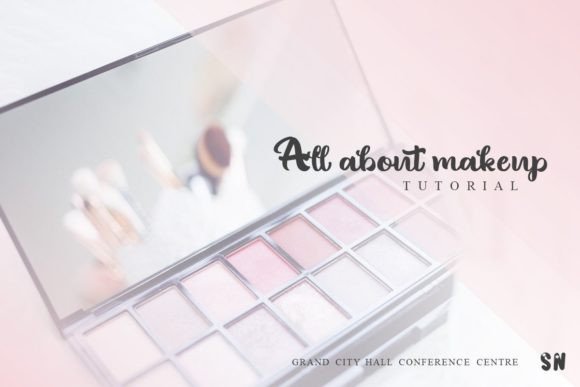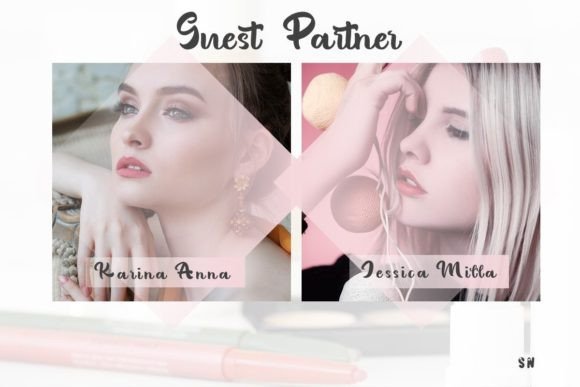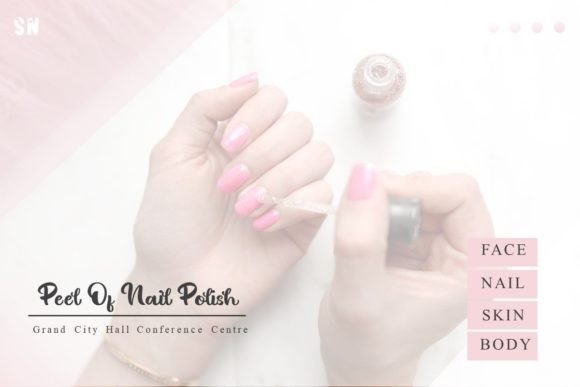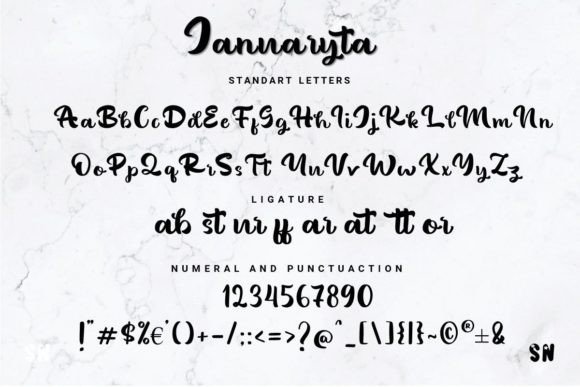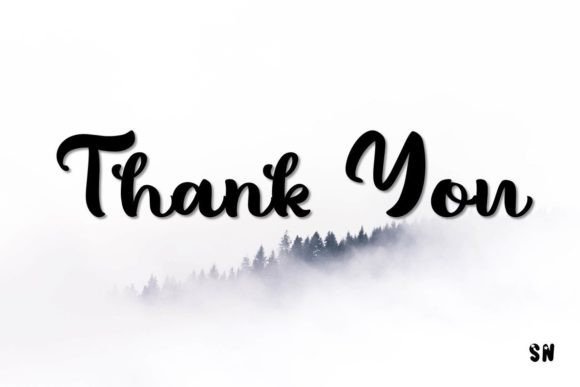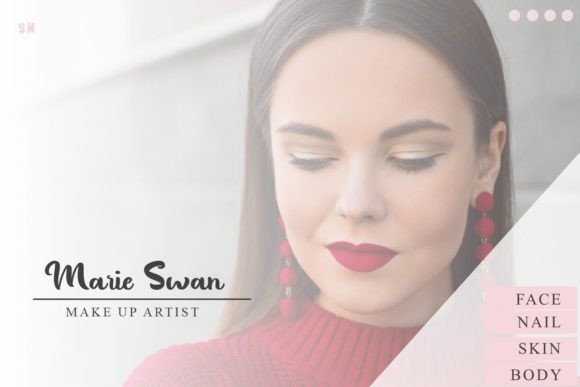
Januaryta Font
About Januaryta Font
“Januaryta: Where Elegance Meets Charm in Handwritten Typography
Introducing Januaryta, a smooth handwritten font that embodies a sense of calm and pleasant elegance. With its cute style and delightful demeanor, this font adds a touch of charm to a variety of creative projects. Whether you’re designing wedding invitations, crafting heartfelt quotes, creating eye-catching social media posts, or expressing gratitude through thank you cards, Januaryta’s smooth and charming script will elevate your designs, making them visually stunning and emotionally resonant.
The allure of Januaryta lies in its smooth and graceful strokes, creating a visual poetry that evokes a sense of tranquility and warmth. Each letter is meticulously crafted to exude a calm and pleasant impression, making it the perfect choice for projects that require a touch of elegance and charm. Imagine your wedding invitations adorned with Januaryta’s handwritten elegance, setting the stage for a romantic and memorable celebration. Picture your quotes and greeting cards featuring its delightful letterforms, conveying messages with a sense of grace and sincerity. With Januaryta, your designs come to life with a touch of charm, making them visually captivating and emotionally resonant.
One of Januaryta’s standout features is its ability to complement a wide range of designs. Its cute style adds a playful and endearing quality to your projects, making it suitable for various applications. Whether you’re designing social media posts, creating eye-catching posters, or working on any project that demands a touch of charm, Januaryta enhances your designs with its delightful presence, making them stand out with its unique blend of elegance and cuteness.
Moreover, Januaryta is more than just a font; it’s a reflection of elegance and charm. Its smooth and cute style resonates with individuals who appreciate the beauty of handwritten typography, making it a favorite among designers and enthusiasts seeking a font that exudes both sophistication and playfulness. Its presence adds a layer of depth and sweetness to your designs, making them visually captivating and unforgettable.
In a world where emotions matter, Januaryta helps you make a statement. It speaks the language of elegance and charm, resonating with those who appreciate the beauty of handwritten artistry. Whether you’re designing for weddings, social media, heartfelt expressions, or any creative endeavor, Januaryta becomes your trusted ally, guiding you toward design excellence.
So, why settle for ordinary when you can embrace the extraordinary with Januaryta? Let this smooth and charming handwritten font be the muse for your creative expressions, and watch as your projects come to life with elegance, charm, and timeless beauty. Let your creativity flow, and let Januaryta be the brushstroke that paints your ideas into visually captivating masterpieces, leaving a lasting impression on the hearts of your audience.”